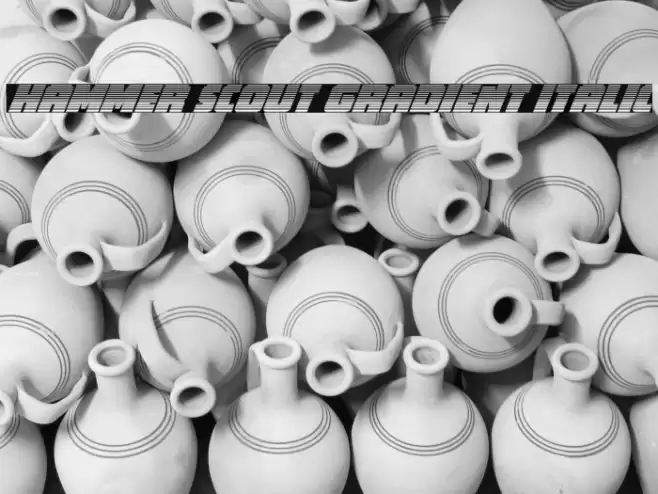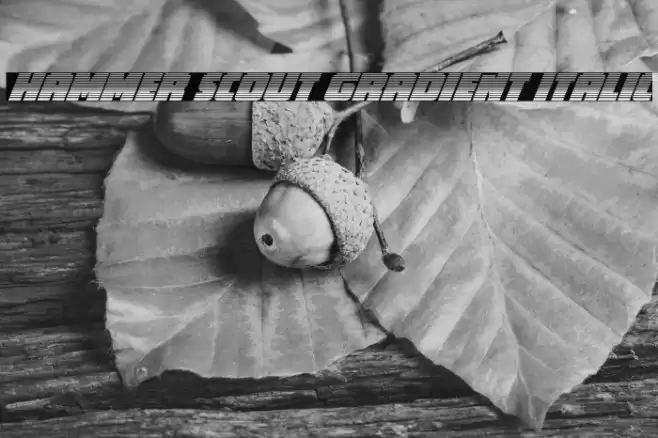
Hammer Scout Gradient Italic Font
Hammer Scout Gradient Italic Description
This font features a bold, italicized style with a distinct gradient effect created by horizontal lines running through each character. The design is highly dynamic, giving a sense of movement and speed. The uppercase and lowercase letters, as well as numbers and special characters, maintain a consistent slanted orientation, enhancing the italicized appearance. The font's unique striped pattern adds a modern and futuristic touch, making it stand out in any design. The characters are wide and have a strong presence, suitable for impactful visual statements.
A bold, italicized font with a gradient effect created by horizontal lines from Regular fonts.
- Proposed Projects: Ideal for sports branding, automotive advertisements, futuristic designs, and dynamic posters.
- Width: Expanded